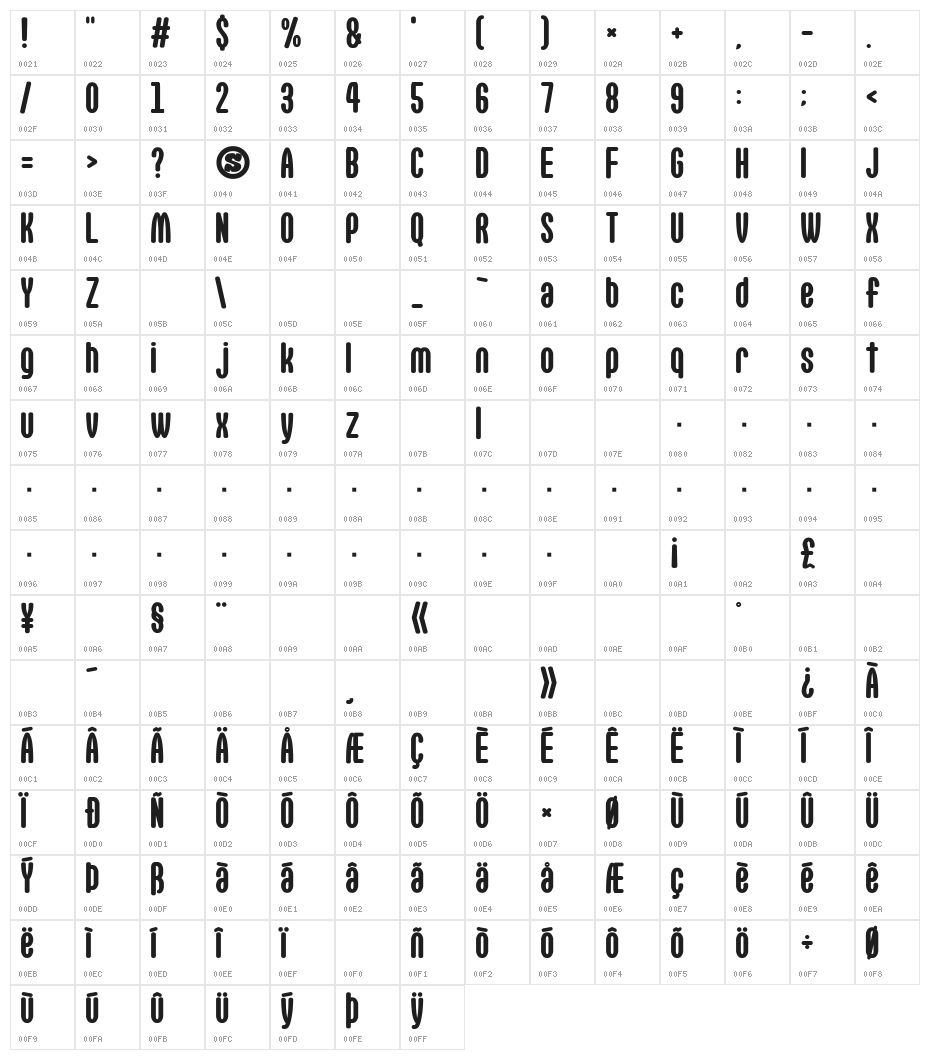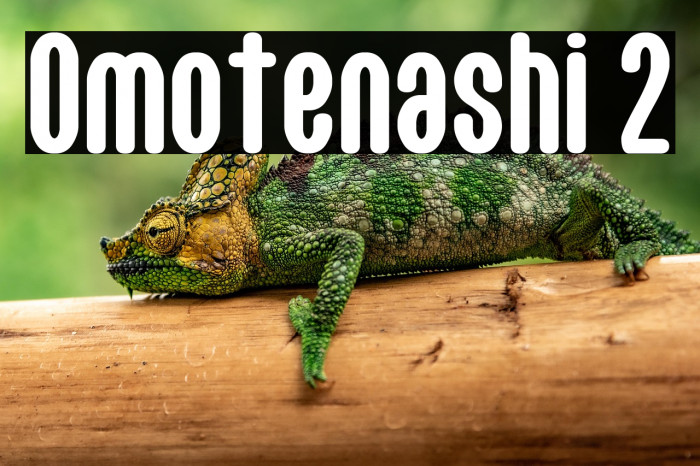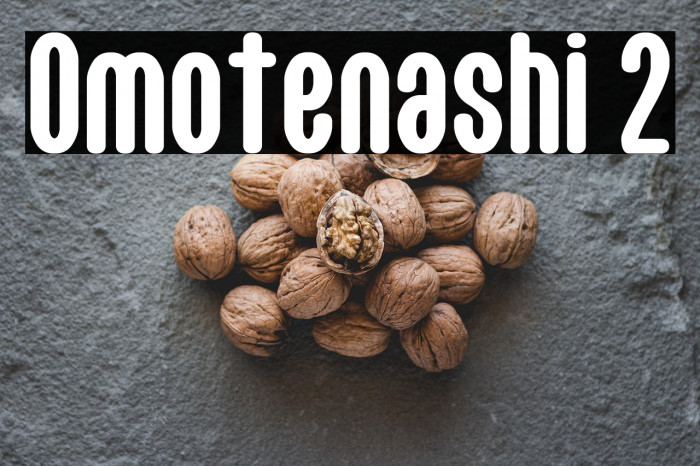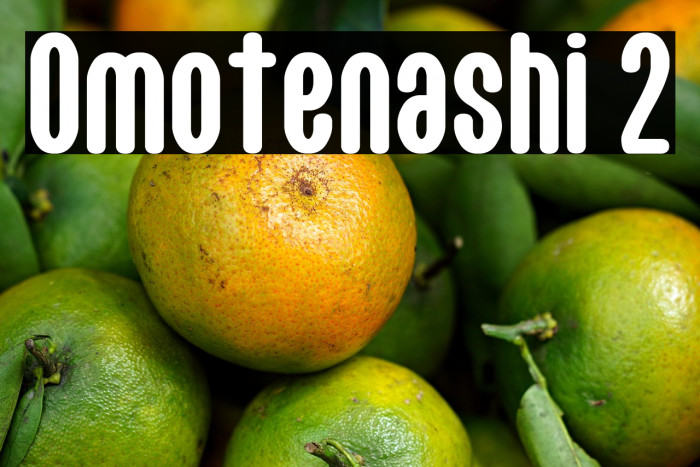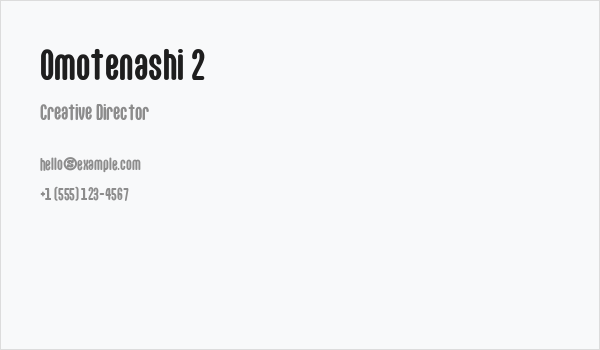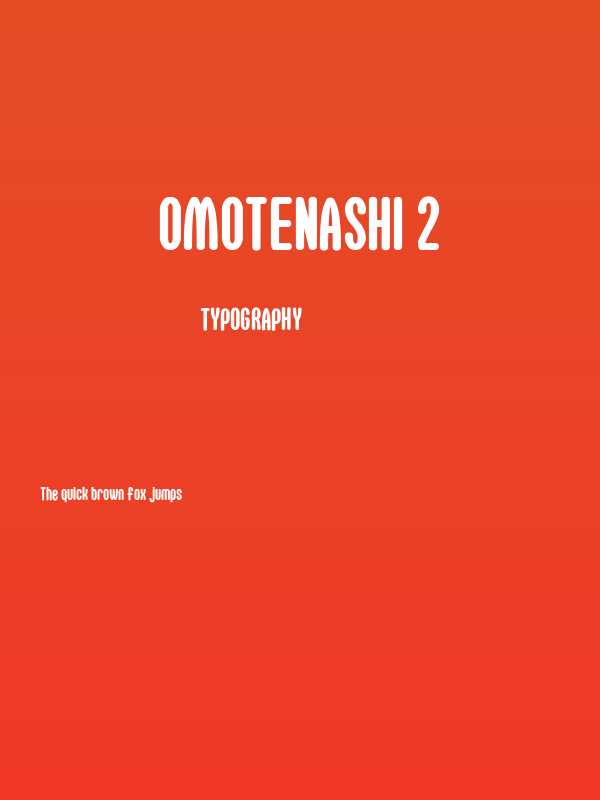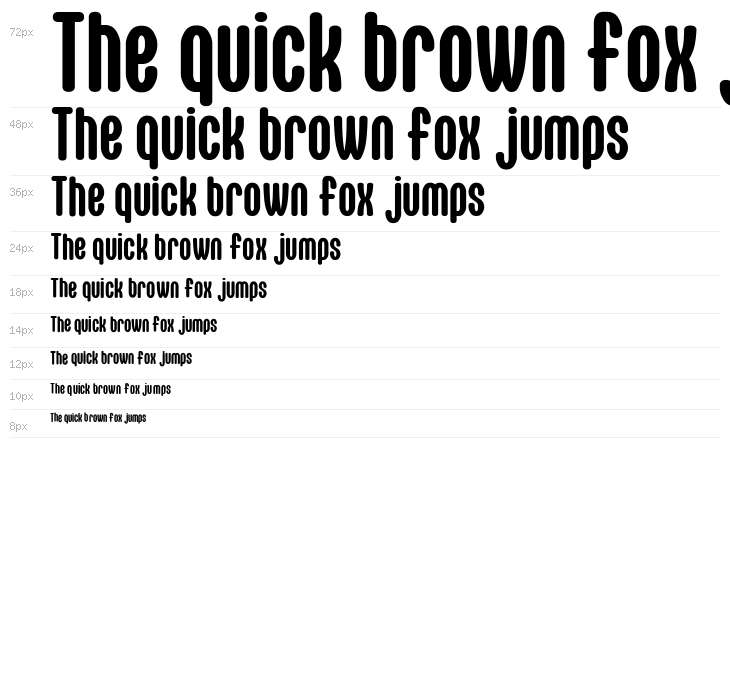
Omotenashi 2 Font
Omotenashi 2 Description
This font features a bold and rounded style with a playful and friendly appearance. The characters are uniformly thick, giving it a strong presence. The rounded edges and consistent stroke width contribute to its approachable and modern look. The uppercase and lowercase letters maintain a cohesive design, while the numerals and special characters are easily legible and match the overall aesthetic. This font is ideal for projects that require a bold statement with a touch of whimsy.